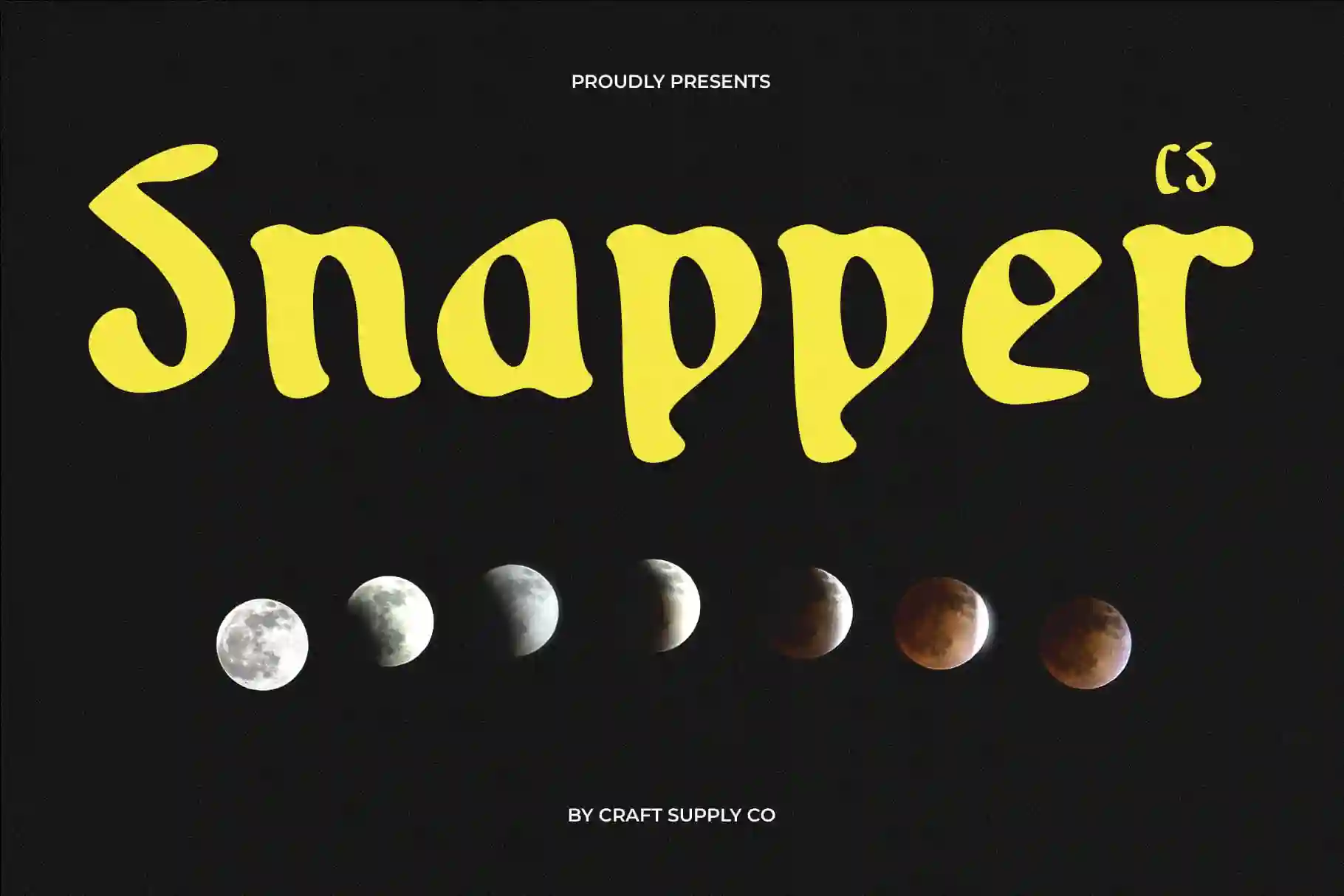
CS Snapper Drawn
CS Snapper Drawn – Modern Blackletter with Gothic Edge
Modern Blackletter with Artistic Flair
This font is a modern blackletter font that redefines tradition with a bold and expressive presence. Rooted in the classic gothic style, its sharp forms and commanding structure exude mystery and strength. The drawn texture amplifies its handmade quality, giving each character a crafted personality that stands apart from conventional blackletter fonts.
Bold Forms with Gothic Mystery
The bold, gothic-inspired shapes of make it a striking choice for projects that demand attention. Its dramatic angles and powerful proportions channel the heritage of medieval calligraphy, yet the drawn effect softens the rigidity, creating a balance between historical weight and artistic freedom.